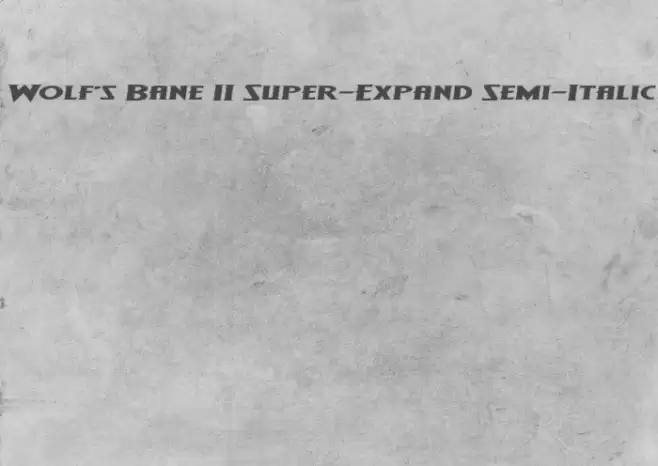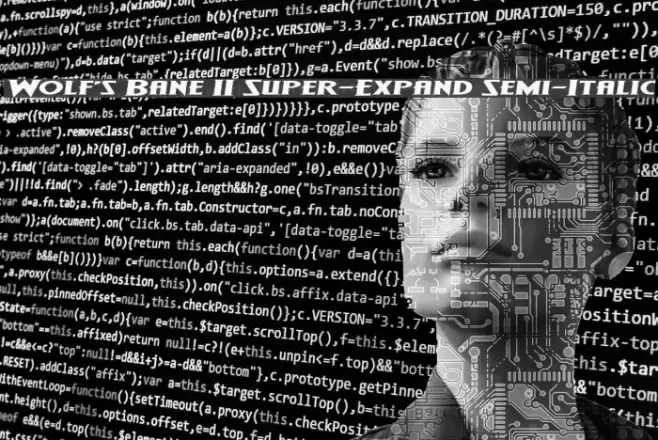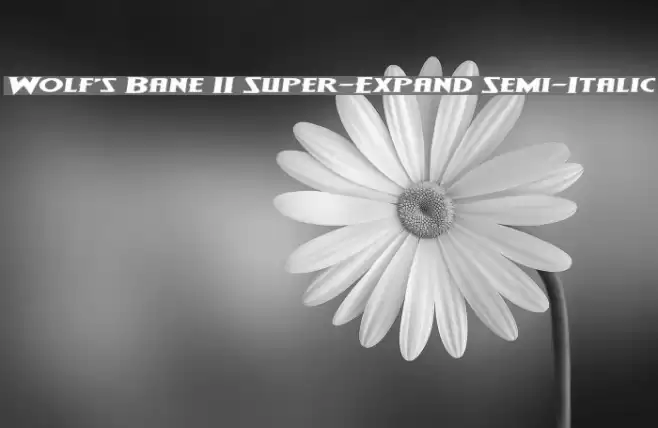
Wolf's Bane II Super-Expand Semi-Italic Font
Wolf's Bane II Super-Expand Semi-Italic Description
This font features a bold and dynamic style with a strong presence. The characters are designed with sharp, angular edges and a slight slant, giving them a sense of motion and energy. The uppercase letters are particularly striking, with wide, expansive forms that command attention. The lowercase letters maintain the same boldness, ensuring consistency throughout the typeface. The numerals are equally robust, with unique shapes that complement the overall design. Special characters are included, each crafted to match the font's distinctive style. This font is ideal for projects that require a strong visual impact.
A bold, angular font with a dynamic, slanted style from Retro fonts.
- Proposed Projects: Ideal for posters, logos, and branding materials that require a bold, impactful look.